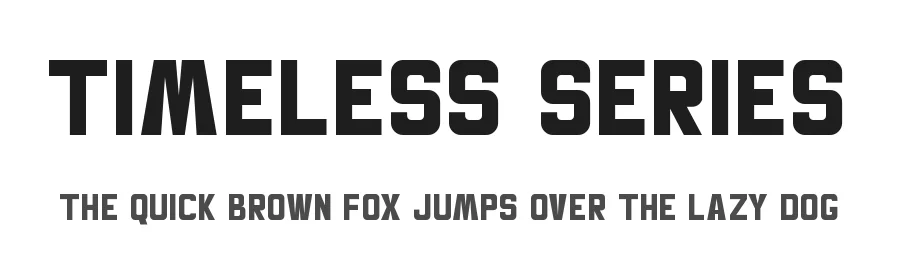
About Liber Struct Font
Liber Struct is a sans-serif font designed by GGBotNet. It includes 119 glyphs, a regular weight, OTF (CFF) format, and 107 languages. Liber Struct is free to download; check the license details on this page before commercial use. Sans-serif fonts like Liber Struct work best for clean body text, user interfaces, branding, and modern layouts.
- Clean, Modern, Sans Serif
Liber Struct Font is a versatile sans-serif font that works for both headings and body text. Pair it with a contrasting serif or slab serif font to add visual interest and a clear distinction between titles and body copy.
Liber Struct Font
by GGBotNet
Liber Struct Font is a sans serif typeface by GGBotNet, ideal for logos, invitations, branding, and creative projects.